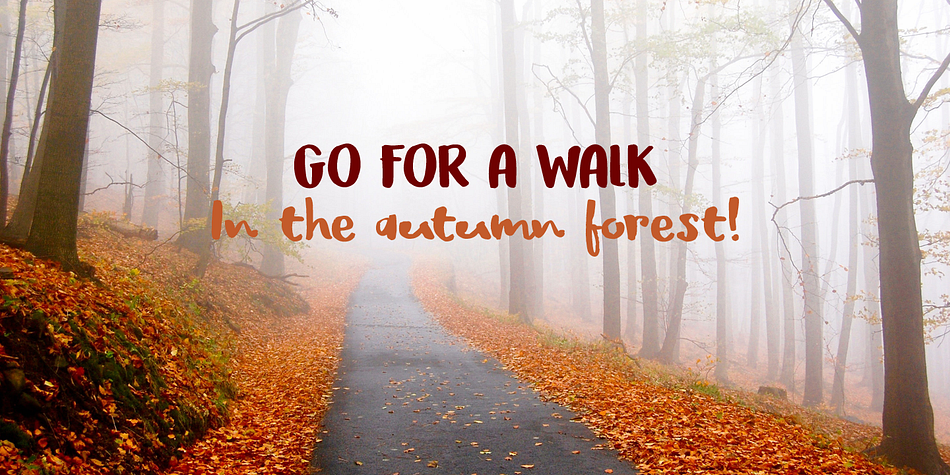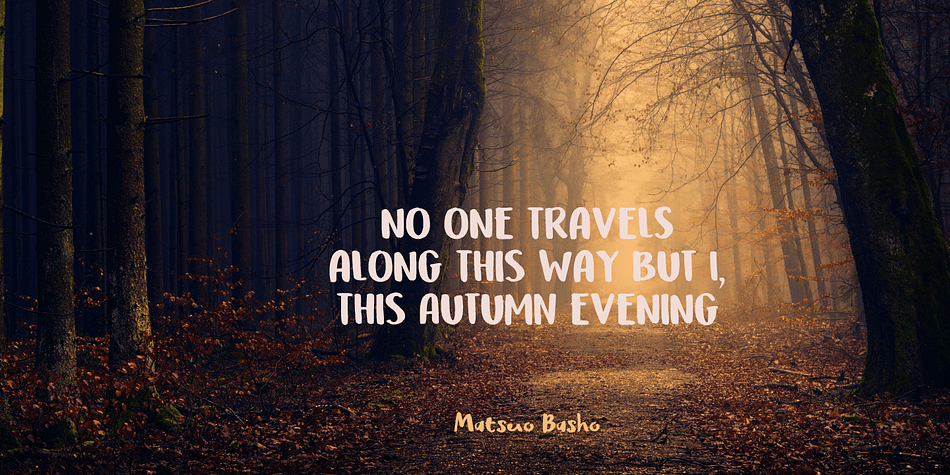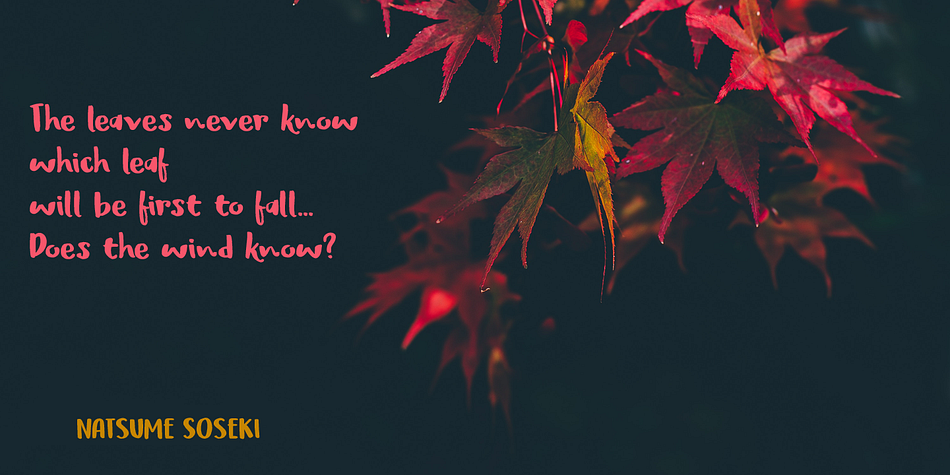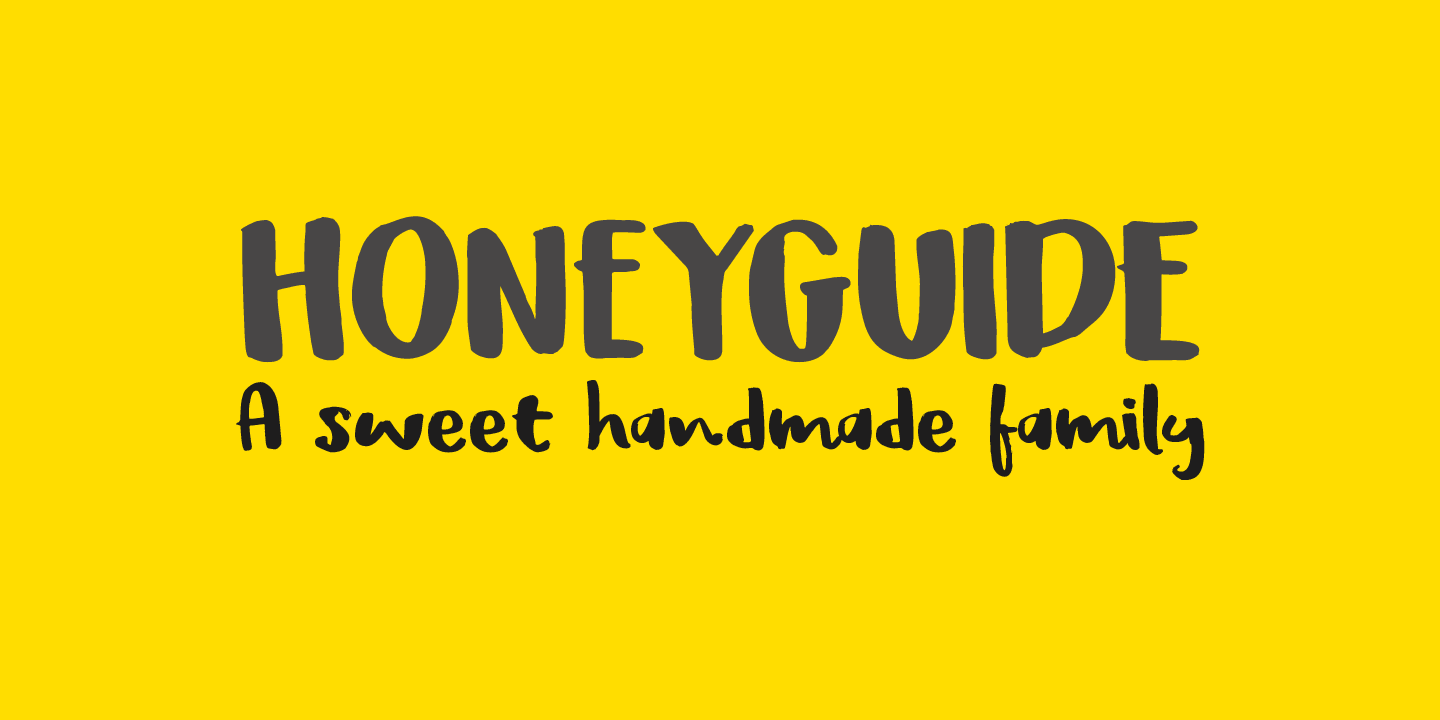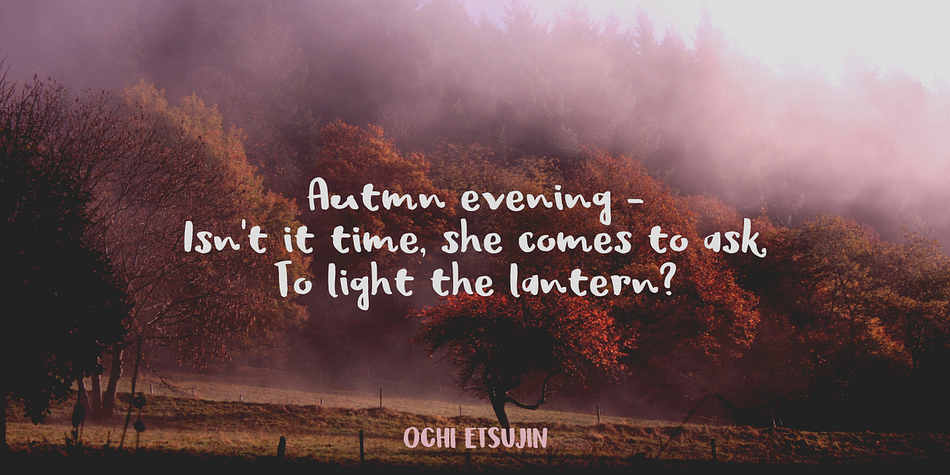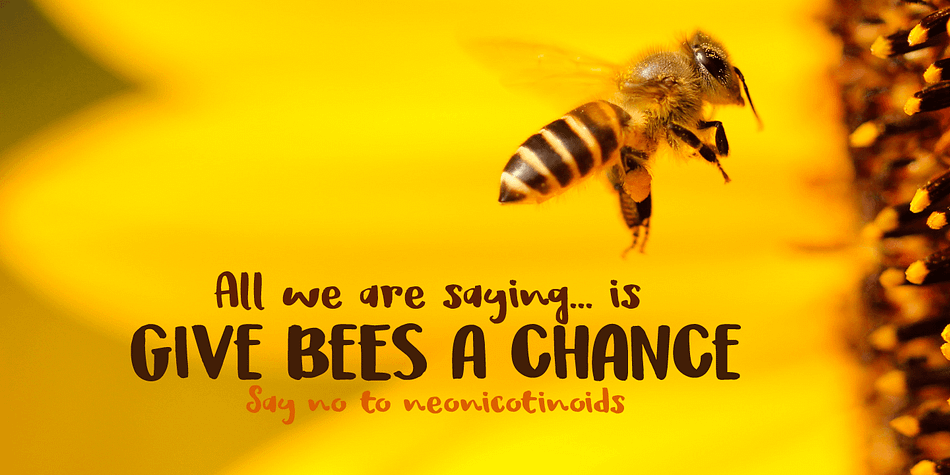
Designed by David Kerkhoff, Honeyguide is a brush script and brush display font family. This typeface has four styles and was published by Hanoded.
Honeyguide is a beautiful, handmade set of fonts. One is a brushed script font; the other a playful all caps font. Both come with italic styles.
Use these two babies for your product packaging and book covers, happy holiday greeting cards and products in need of some quality packaging.
A honeyguide, by the way, is a bird species (fam. Indicatoridae) from Africa and Asia. They are famous for leading humans to bee colonies, so they can feast on the grubs and beeswax that are left behind.